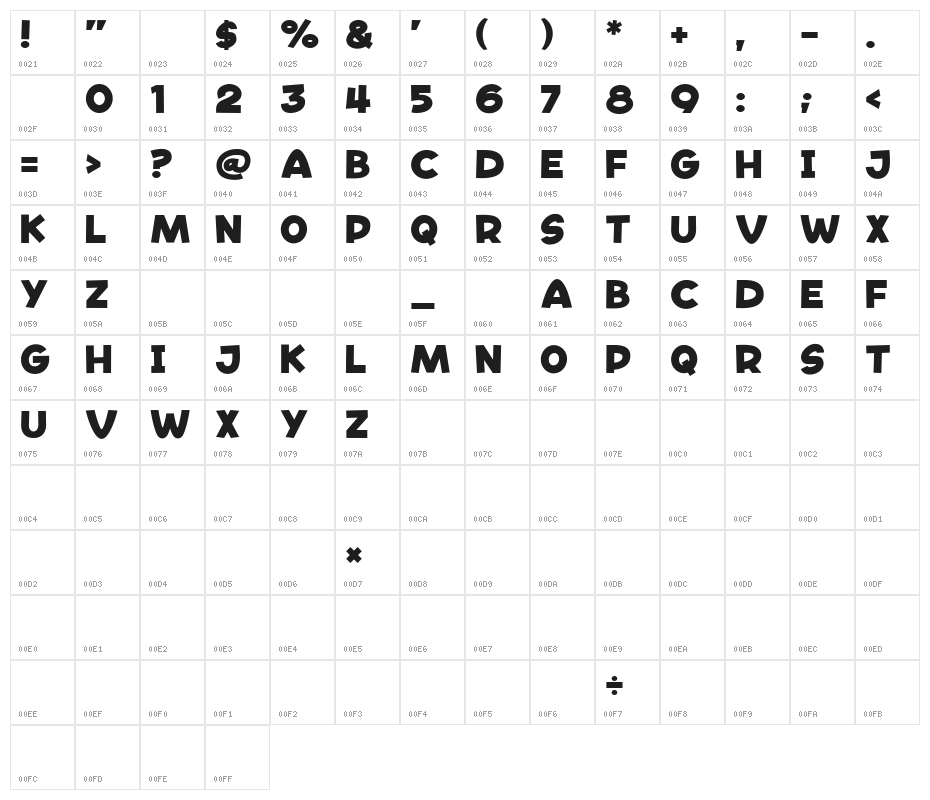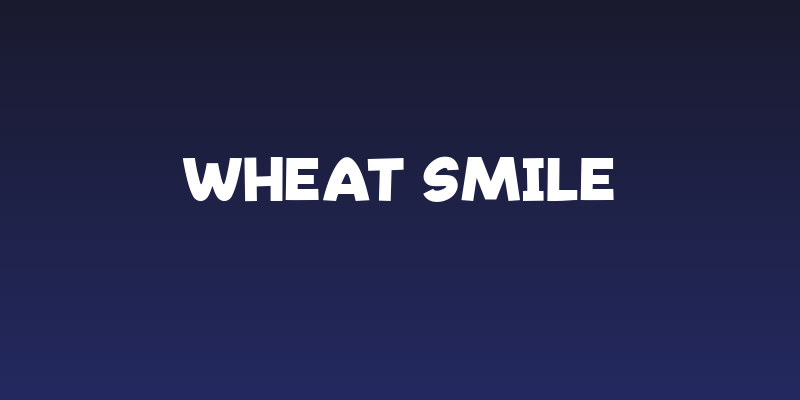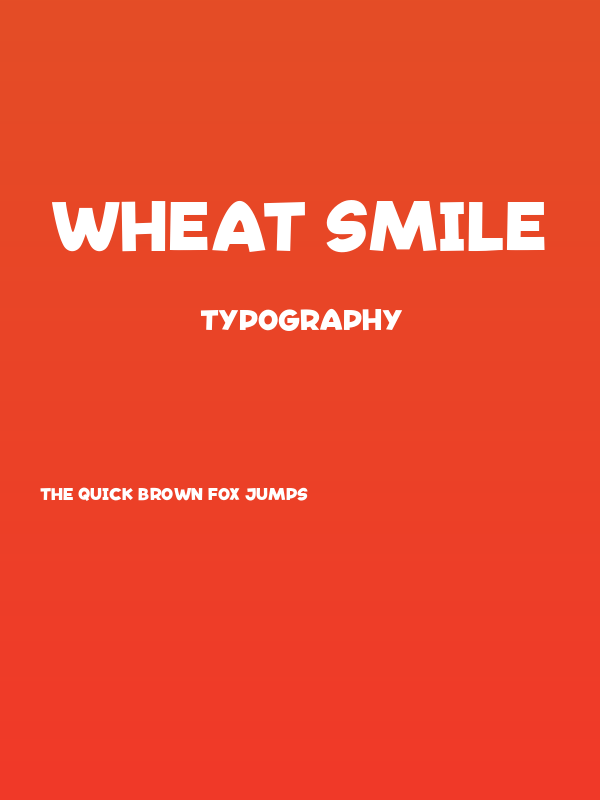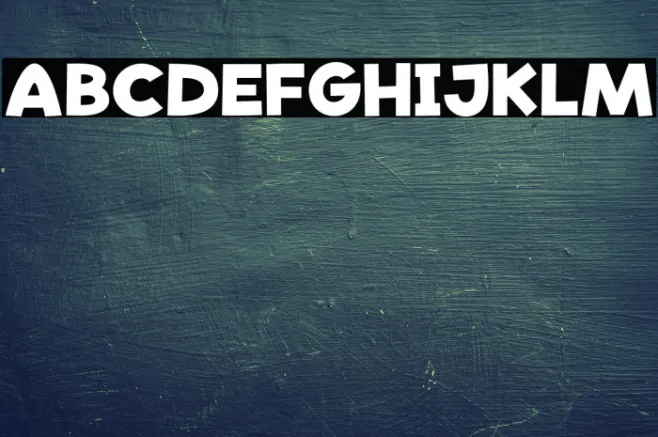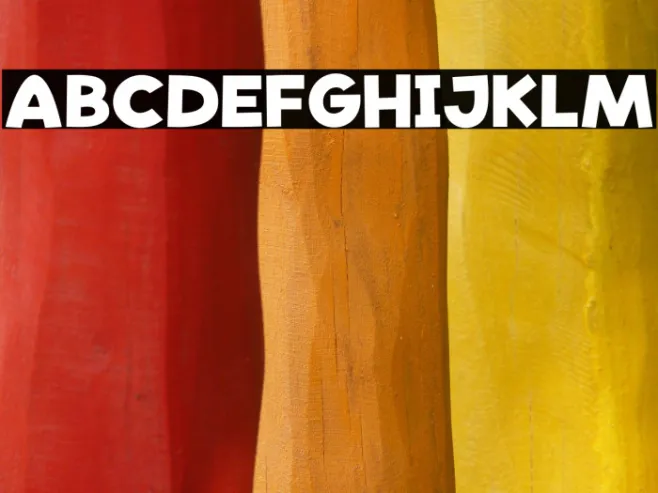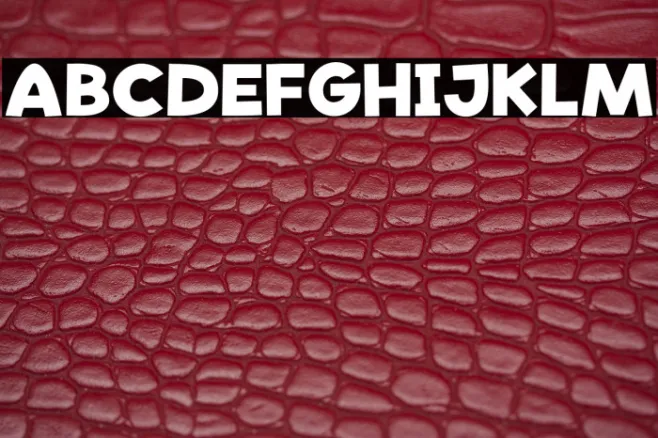
Wheat Smile Font
Wheat Smile Description
This font features bold, playful characters with a whimsical and cartoonish style. The letters are rounded and slightly irregular, giving them a fun and informal appearance. The uppercase and lowercase letters maintain a consistent weight, contributing to a cohesive look. The numbers and special characters follow the same playful design, making the font suitable for creative and lighthearted projects. The overall style is reminiscent of comic book lettering, with a touch of retro flair. The font's boldness and unique character shapes make it stand out, perfect for capturing attention.
| Overall Style | Playful, Cartoonish, Retro |
| Proposed Projects | Ideal for children's books, comic strips, playful branding, and posters. |